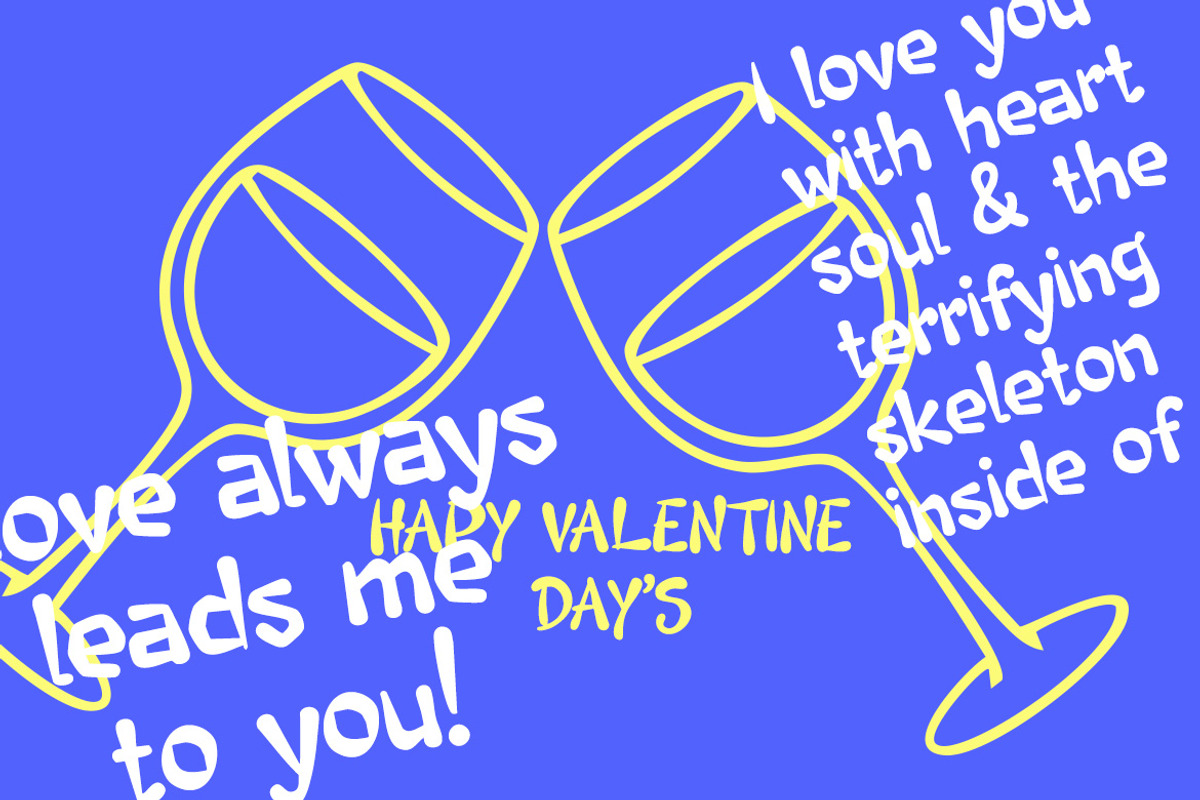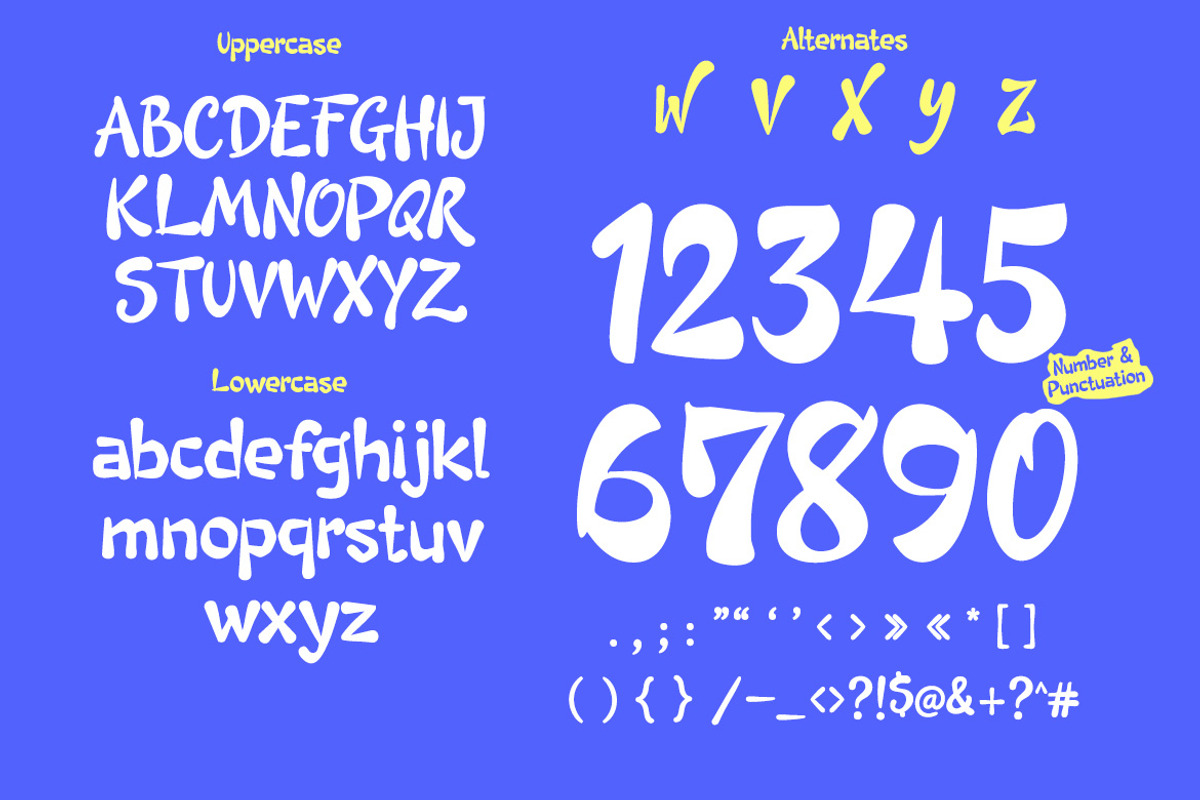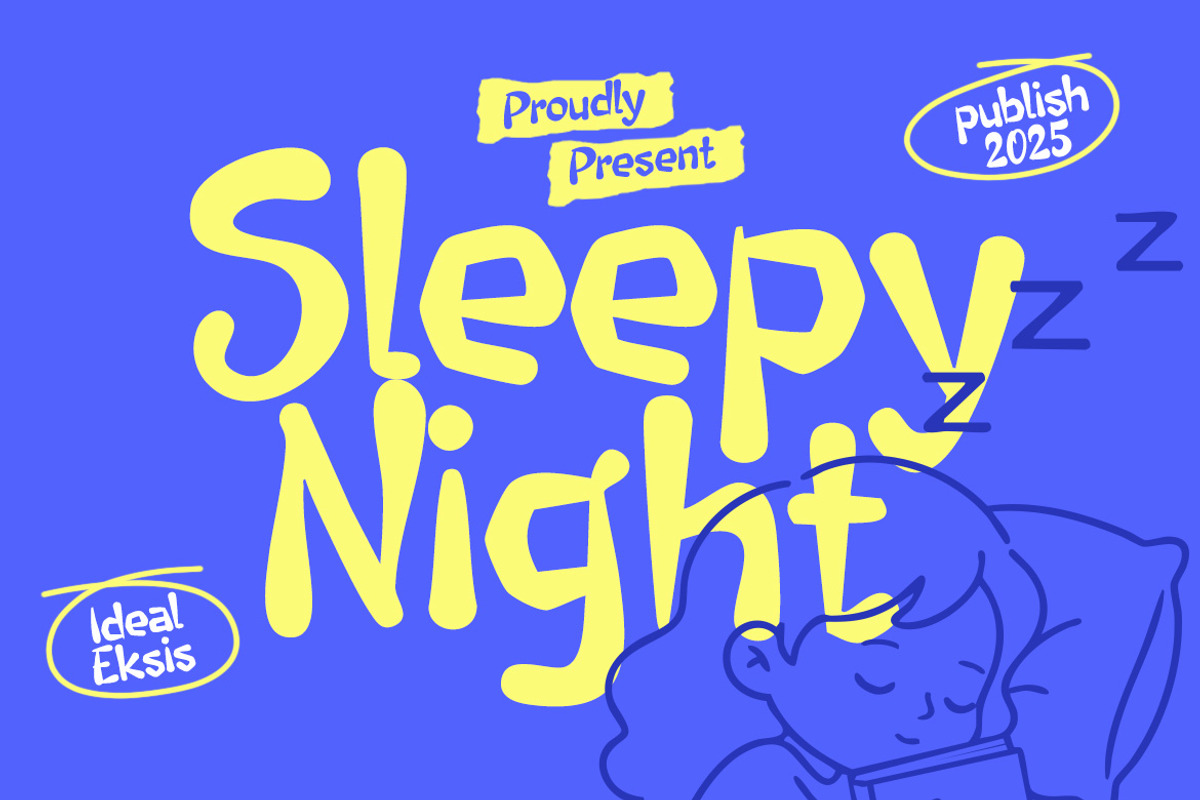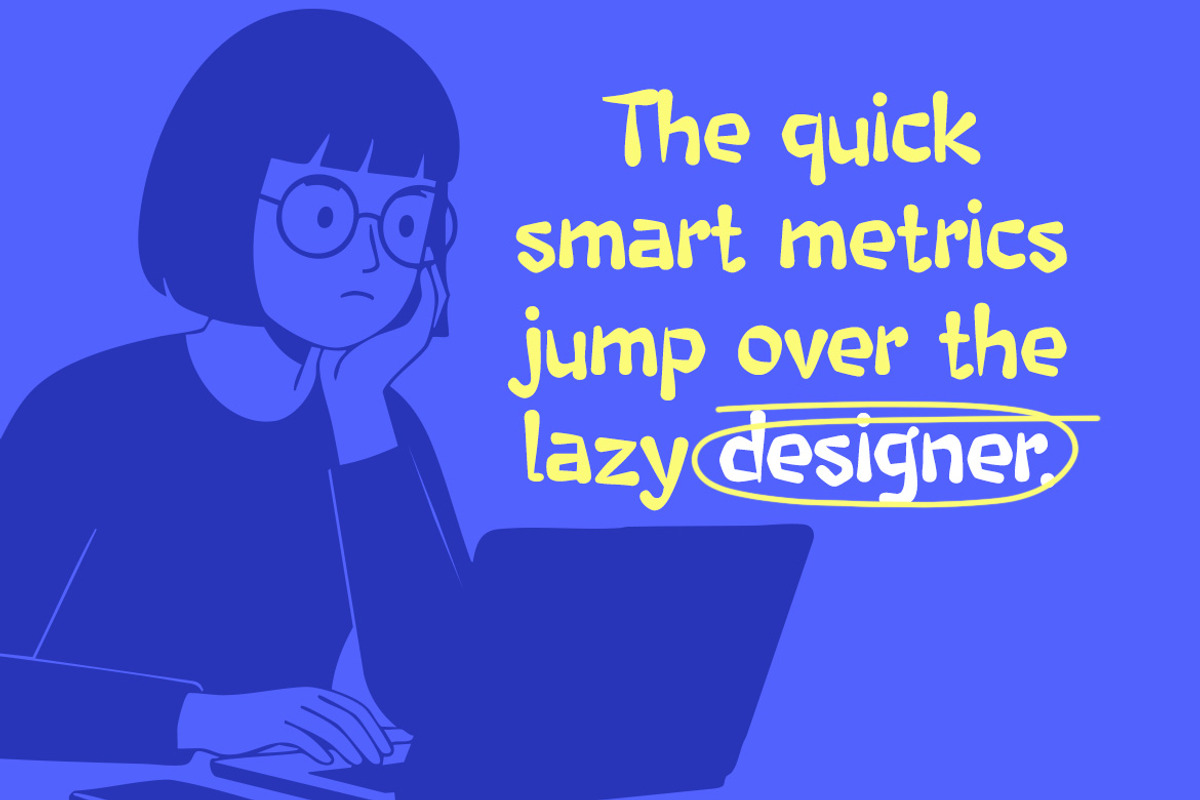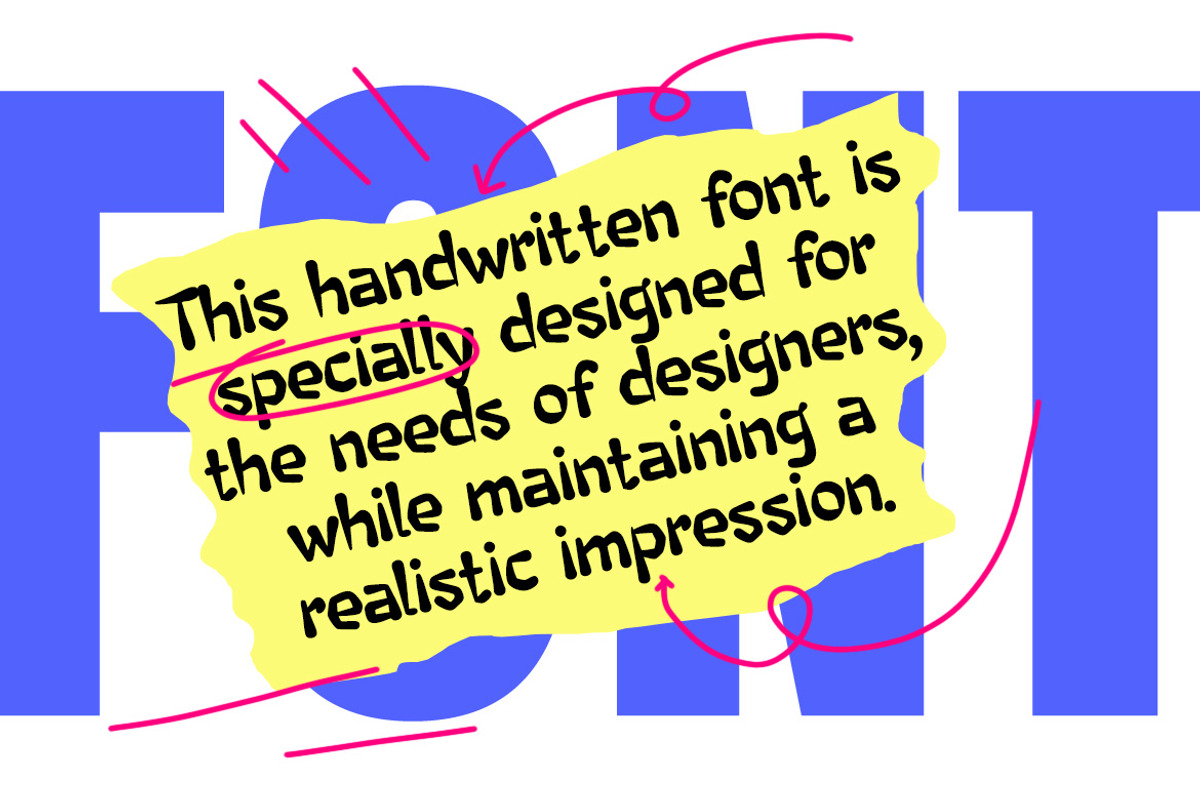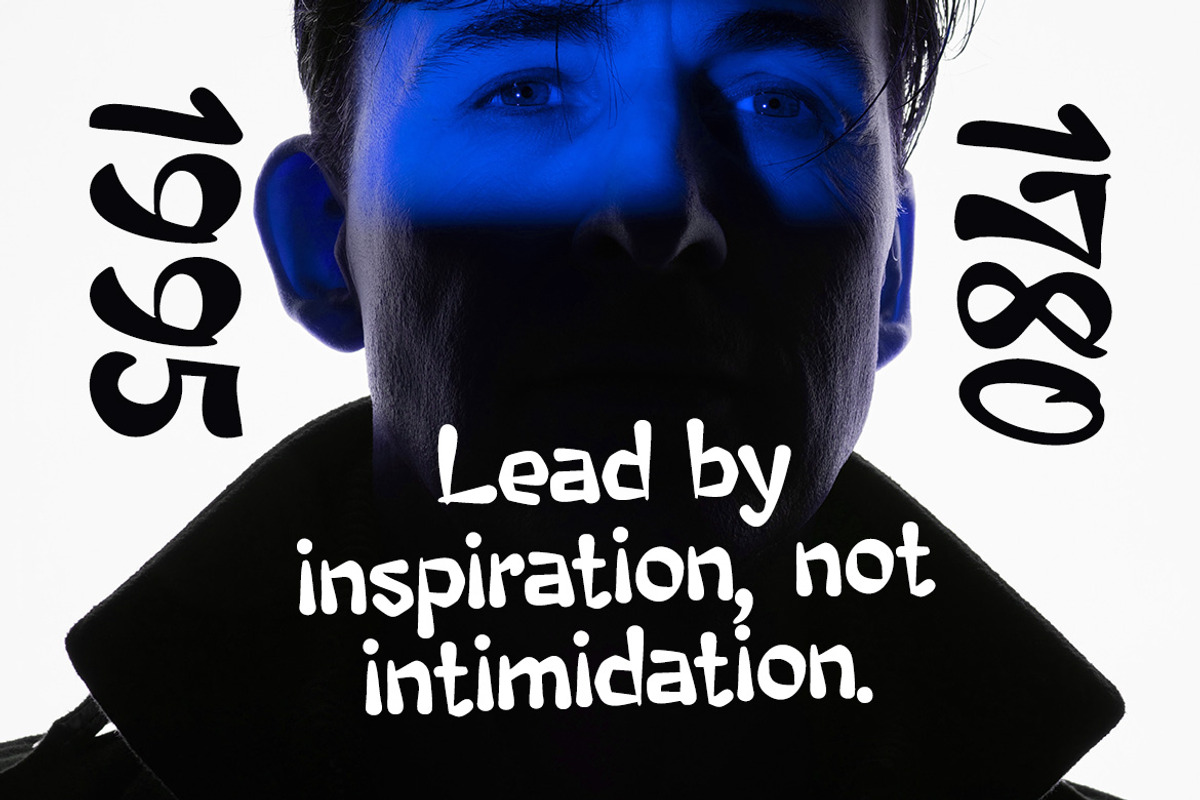
Sleepy Night
This 'Sleepy Night' typeface is a charming and whimsical display font, characterized by its exceptionally rounded and soft letterforms. Each character features a thick, consistent stroke weight with no sharp edges, creating a friendly and approachable aesthetic. The terminals are smoothly curved, contributing to its overall organic and almost bubble-like appearance. Its low contrast and generous counter spaces enhance readability at larger sizes while maintaining a cozy, inviting feel. This typeface is ideal for projects aiming for a lighthearted, dreamy, or childlike mood, such as branding for children's products, casual event invitations, packaging, social media graphics, and headlines that require a touch of warmth and playfulness. It would also be suitable for various forms of merchandise.